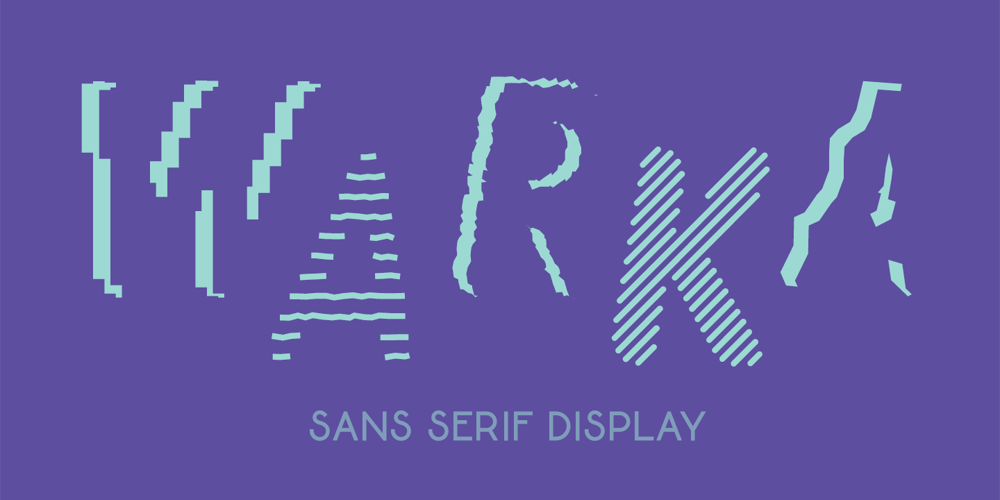
Warka Font Family was designed by Alex Etewut and published by Etewut. Warka contains 5 styles and family package options. Warka typeface is based on sans serif. This display family includes 5 font styles. Combinations may give you impressive effects.